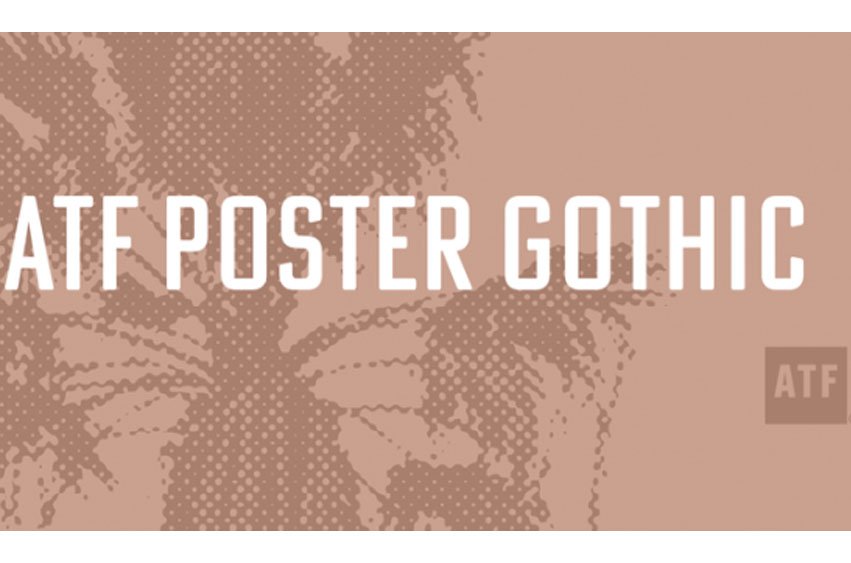
ATF Poster Gothic Font is an expansion of a typeface designed in 1934 by Morris Fuller Benton for American Type Founders. The one-weight design was a slightly condensed display companion to Benton’s ubiquitous family.
This new family of aggressively rectilinear headline types expands the design’s possibilities, offering 30 fonts. The all-cap design sports square corners in the counters, creating tension between angular and curved details; this feature, and the generally rectangular shape of the whole alphabet, makes ATF Poster Gothic distinctive on the page or screen, while its relationship to Bank Gothic makes it seem somehow familiar.